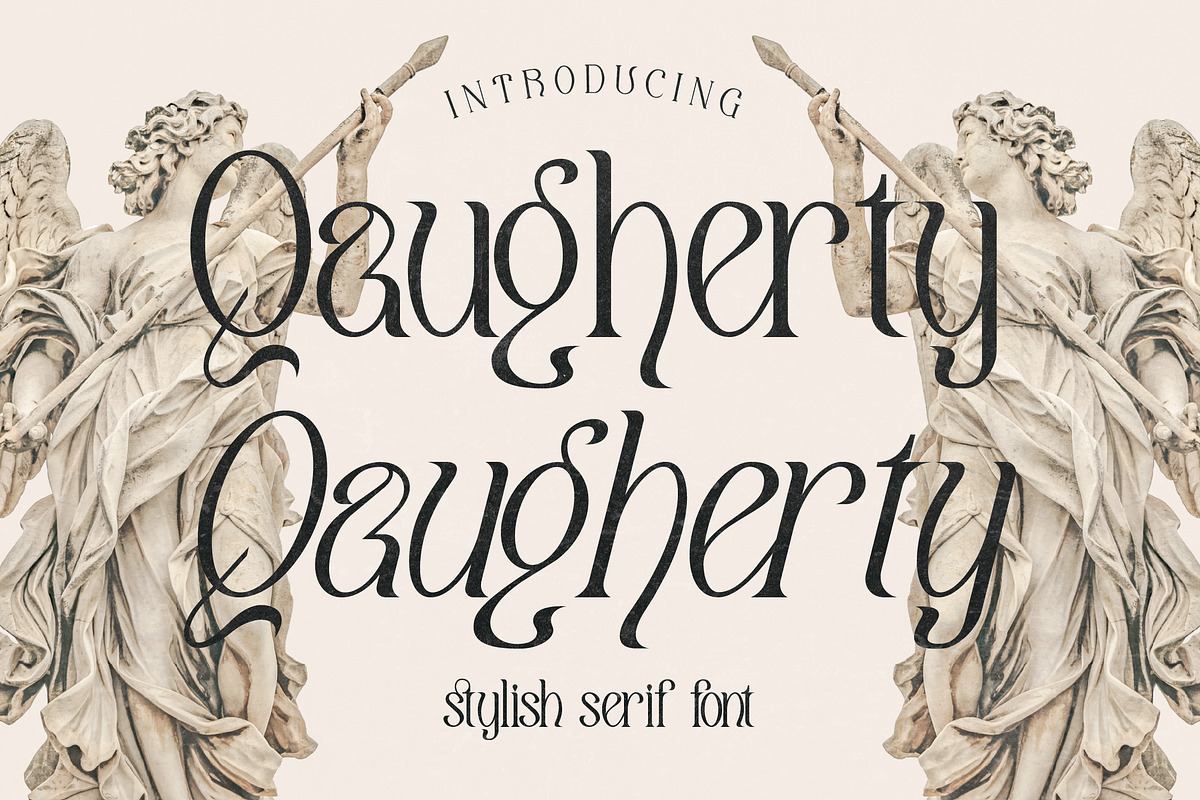
Qaugherty Stylish Serif Font Free Download
Elevate your designs with the timeless sophistication of Qaugherty Stylish Serif Font Free Download. This elegant serif typeface combines classic letterforms with modern flair, making it perfect for high-end branding, editorial design, invitations, and product packaging.
Qaugherty features smooth, refined serifs, high contrast, and balanced proportions, offering both readability and elegance. It includes uppercase and lowercase letters, numerals, punctuation, and stylistic alternates—ideal for testing luxurious and professional layouts in both print and digital formats.